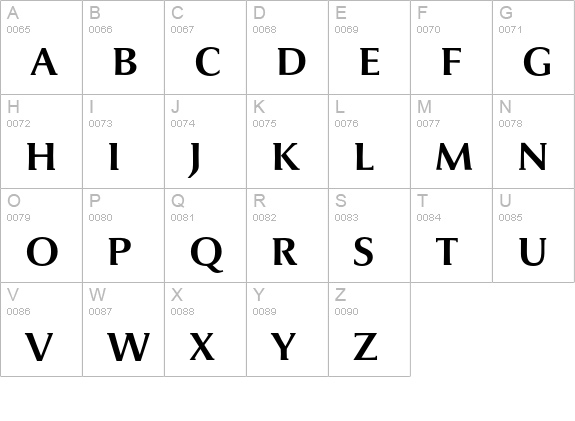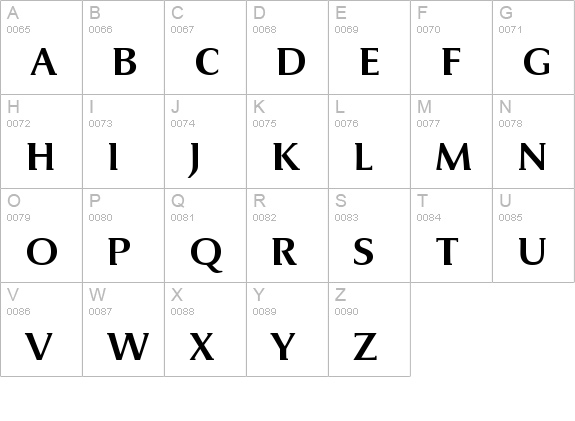
JaguarJC-Bold Font Details
JaguarJC-Bold is a strong, high-contrast variant in the JaguarJC typeface family \xE2\x80\x94 well suited to headlines, attention-grabbing titles, and strong calls-to-action.
JaguarJC-Bold is a bold and powerful display font that exudes confidence and sophistication. This font is perfect for creating eye-catching headlines, captivating logos, and impactful designs. With its strong and commanding letterforms, JaguarJC-Bold demands attention and makes a lasting impression. What sets JaguarJC-Bold apart is not just its stunning aesthetics, but also the fact that it is freely available to download at FontsMarket.com. This means that designers and creatives can easily access this exceptional font without any cost or restrictions. Whether you are a professional designer or a passionate hobbyist, JaguarJC-Bold offers you the opportunity to elevate your projects with its premium quality and versatility. The characters of JaguarJC-Bold are meticulously designed, with sharp edges and clean lines that create a sense of precision and professionalism. Each letter is carefully crafted to ensure legibility and readability, even at smaller sizes. This makes JaguarJC-Bold suitable for a wide range of applications, from print materials such as magazines and brochures, to digital designs such as websites and social media graphics. The bold weight of JaguarJC-Bold adds impact and emphasis to every word and phrase. It commands attention and makes a strong statement, making it ideal for headlines, titles, and prominent branding elements. Whether you are designing a bold logo for a fashion brand, a striking poster for an event, or a powerful advertisement, JaguarJC-Bold will help you capture attention and leave a lasting impression. With its timeless elegance and versatility, JaguarJC-Bold is a font that will never go out of style. It is a reliable choice for any design project, from modern and sleek to classic and sophisticated. Its wide range of international characters also ensures that JaguarJC-Bold can be used for multilingual projects, allowing you to reach a global audience with ease. Download JaguarJC-Bold for free at FontsMarket.com and unlock the potential to create stunning designs that truly stand out. This font is a valuable addition to any designer's toolbox, offering unrivaled quality and style without any cost. Don't miss out on this opportunity to elevate your designs and make a lasting impact with JaguarJC-Bold.